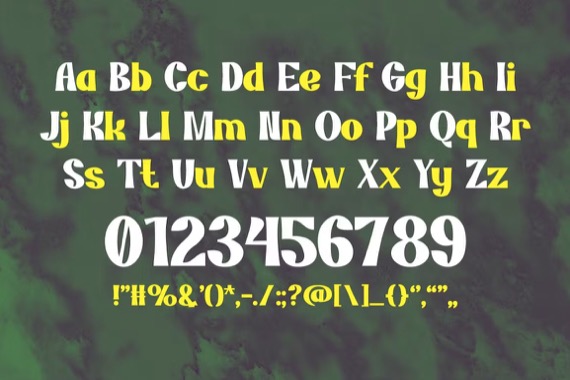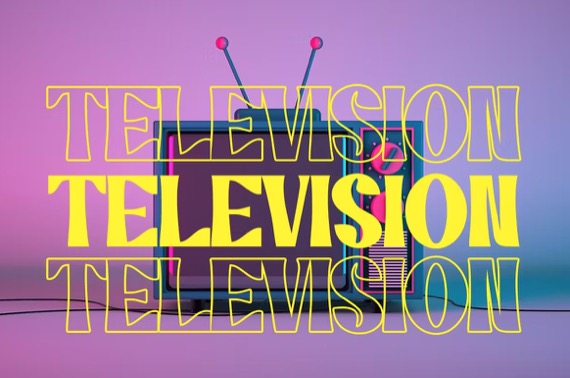
Leonard is a distinctive and classic display font that skillfully merges the nostalgic allure of retro design with the elegance of modern and classic styles, creating a unique vintage look. This font truly celebrates an age-old aesthetic, updated with contemporary sensibilities, making it a versatile choice for various design applications. To the logos, Leonard adds a touch of sophistication, combining traditional charm and modern simplicity. The timeless nature of this font is perfect for showcasing quotes with lasting elegance. Leonard sets a classic and memorable tone to the invitations, making each event feel special and distinguished. Applied to posters and greetings, it gives off a warm and welcoming vibe, captivating audiences with its unique blend of styles. In the areas of packaging and branding, Leonard offers a distinctive identity that bridges old-world charm and modern elegance
Leonard Retro Display Font